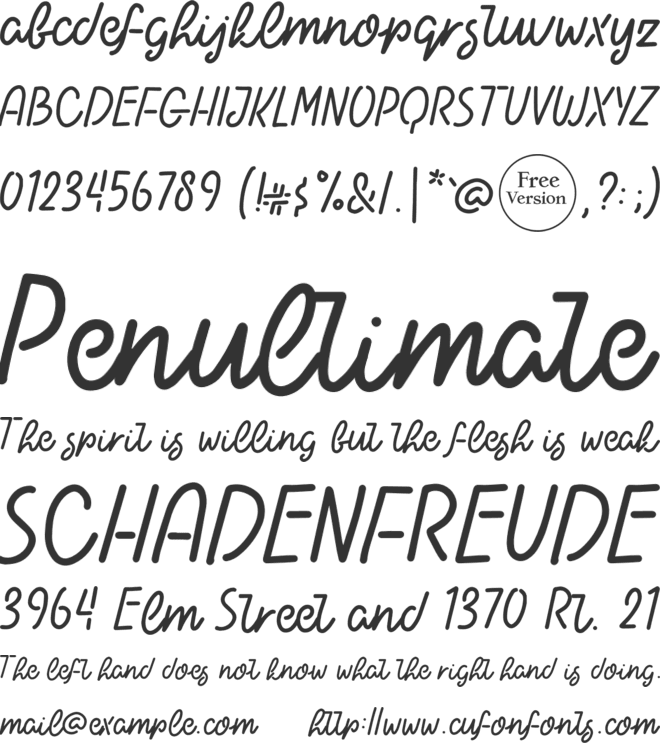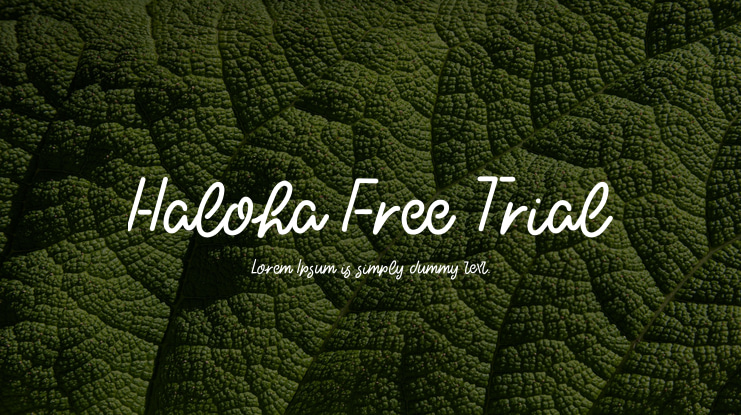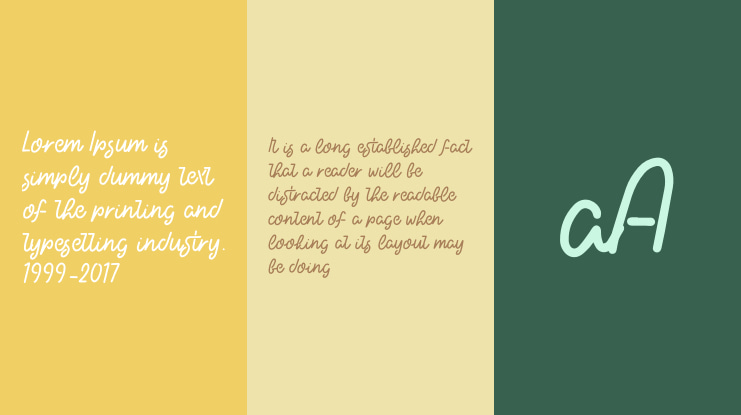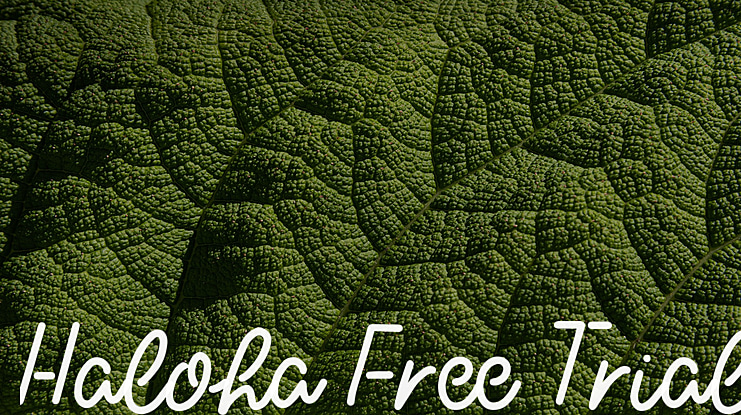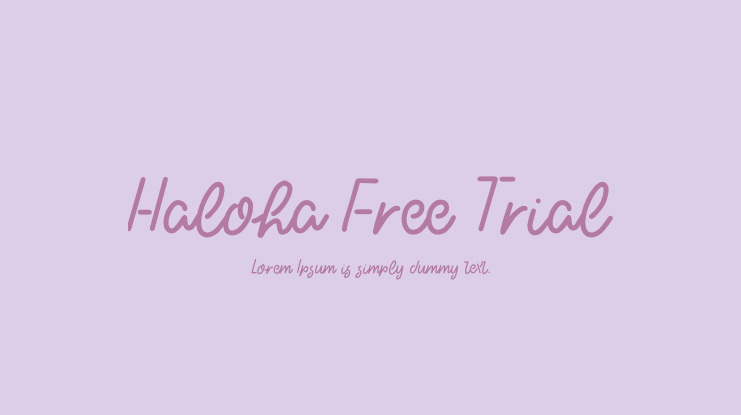
Haloha Free Trial Font
Haloha is an elegant script font that will bring beauty and harmony to your designs.
It is inspired by Summer theme typographies and it looks casual and natural.
Haloha is perfect for branding purposes such as logo, label, title, headline, product, social media, business card, quotes, and others